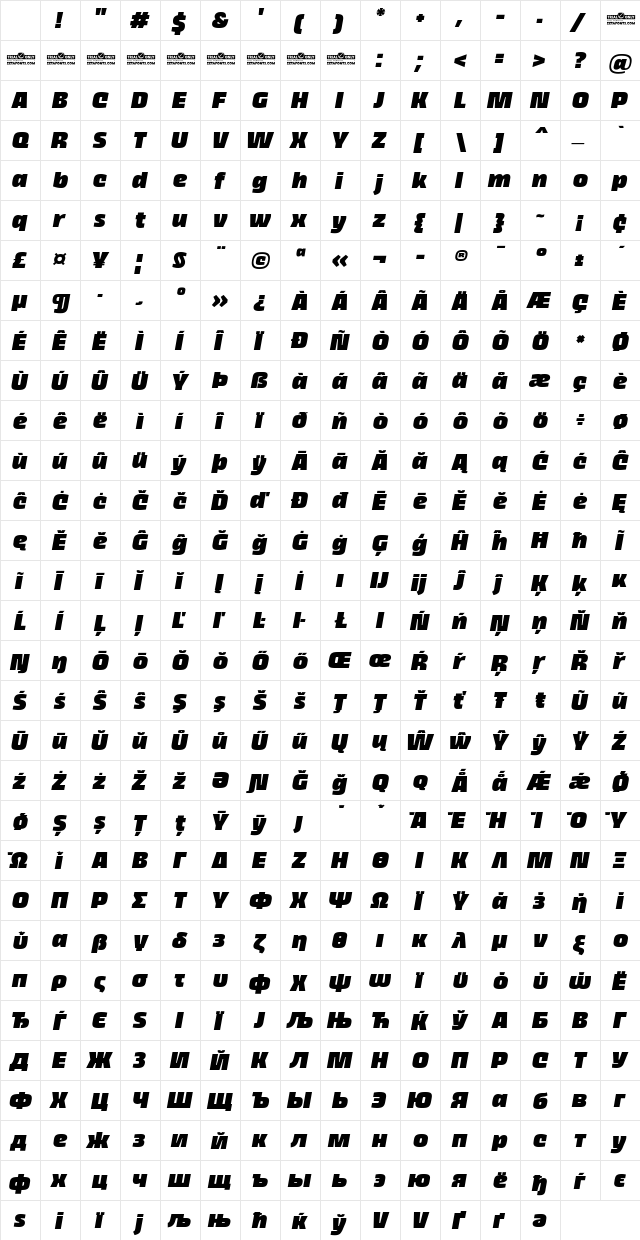
Thicker Trial is a composed and adaptable typeface that performs quietly and consistently across a wide range of design contexts. The slanted form adds forward momentum and visual energy.
Pro Tip: Use Thicker Trial for emphasis, pull quotes, and subheadings where its slanted energy can add rhythm to the layout.